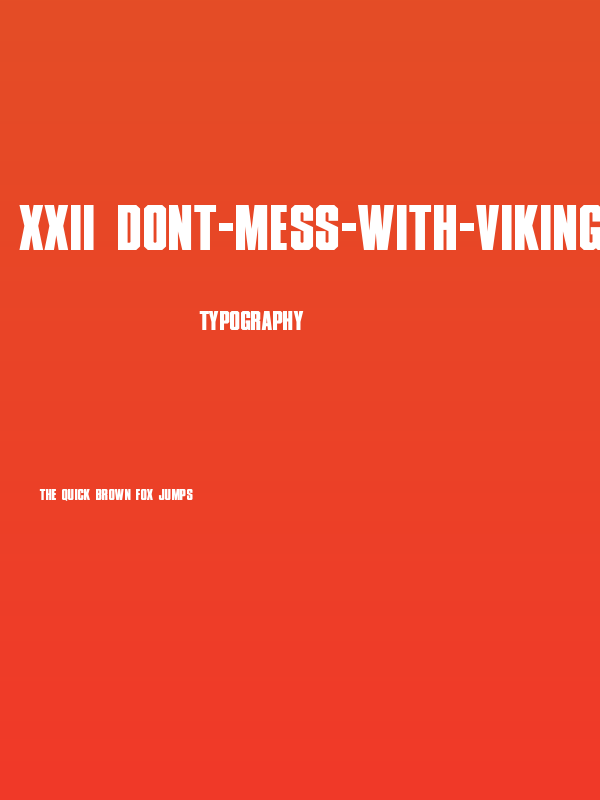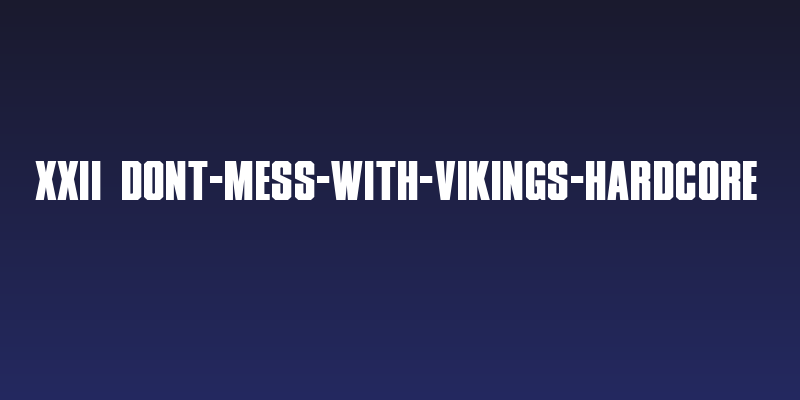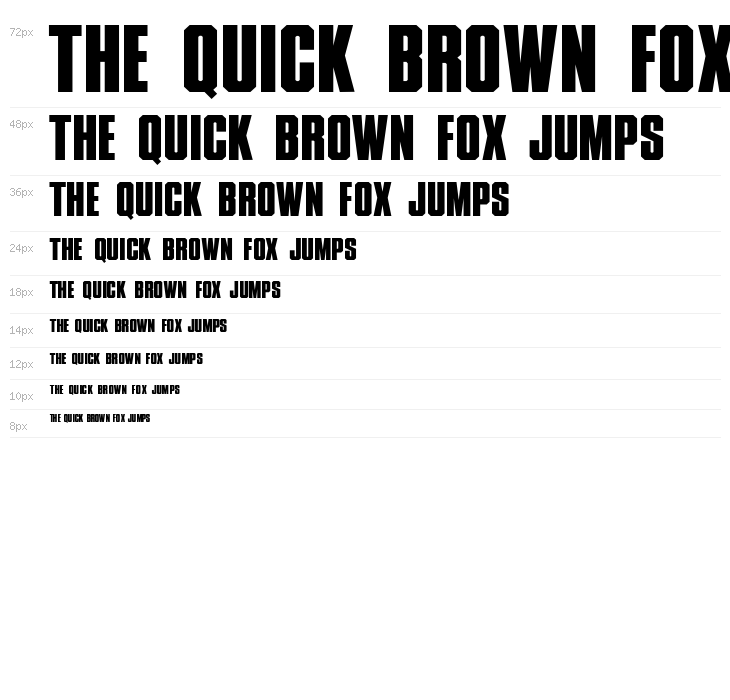
XXII DONT-MESS-WITH-VIKINGS-HARDCORE Font
XXII DONT-MESS-WITH-VIKINGS-HARDCORE Description
This font exudes a bold and powerful presence, characterized by its thick, blocky letters and strong geometric shapes. The uppercase letters are particularly striking, with sharp angles and a robust structure that commands attention. The numbers and special characters maintain this boldness, ensuring consistency across all glyphs. The font's design is reminiscent of a hardcore, industrial style, making it ideal for projects that require a strong visual impact. Its heavy weight and solid form make it suitable for headlines, posters, and branding materials where a commanding and assertive look is desired.
| Proposed Projects | Ideal for use in headlines, posters, branding, and any project requiring a bold, impactful typeface. |